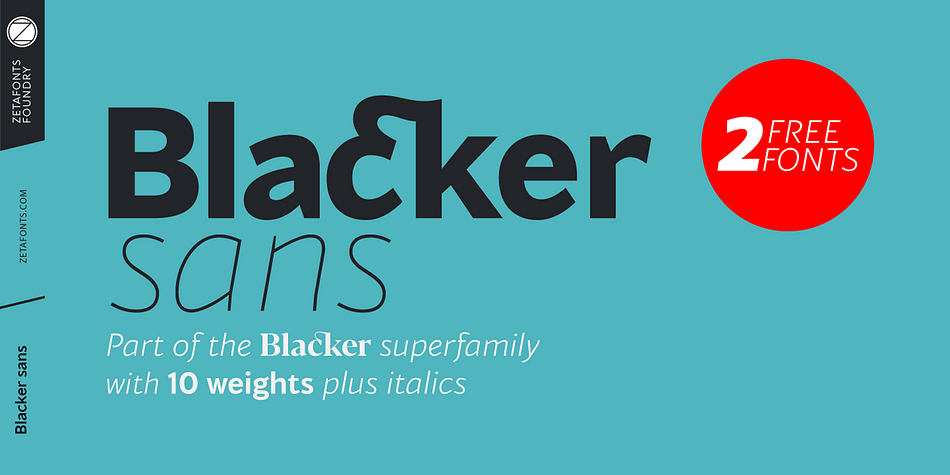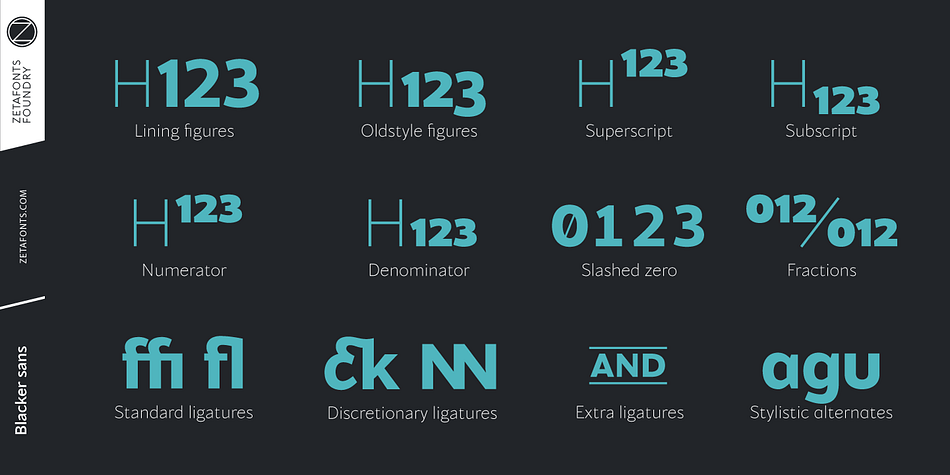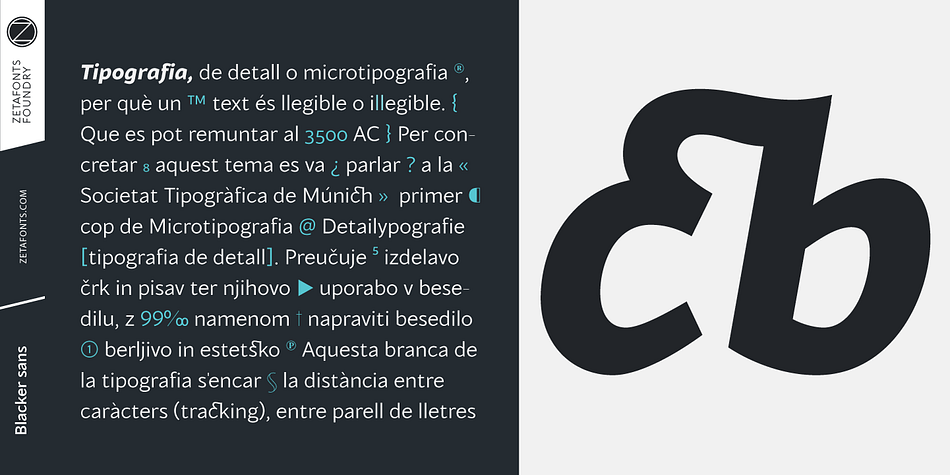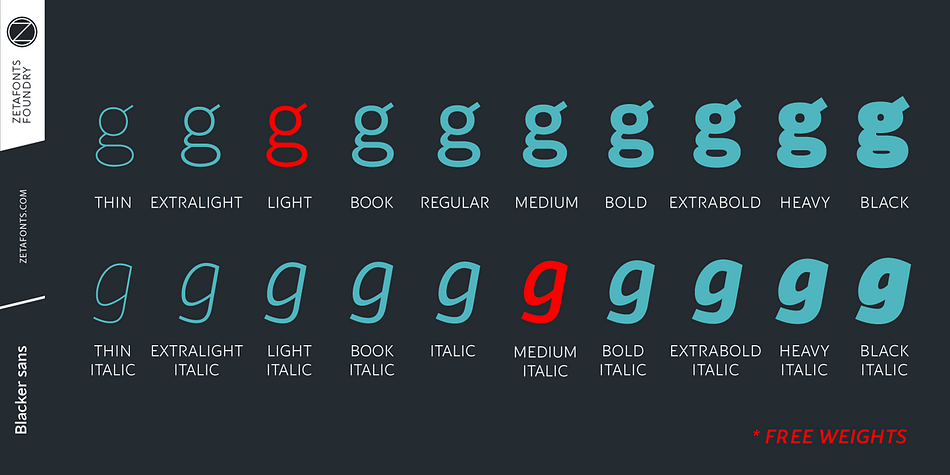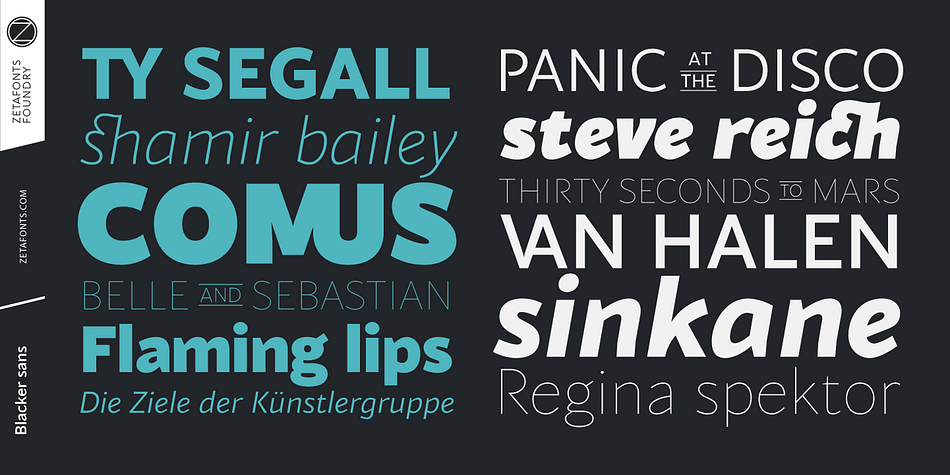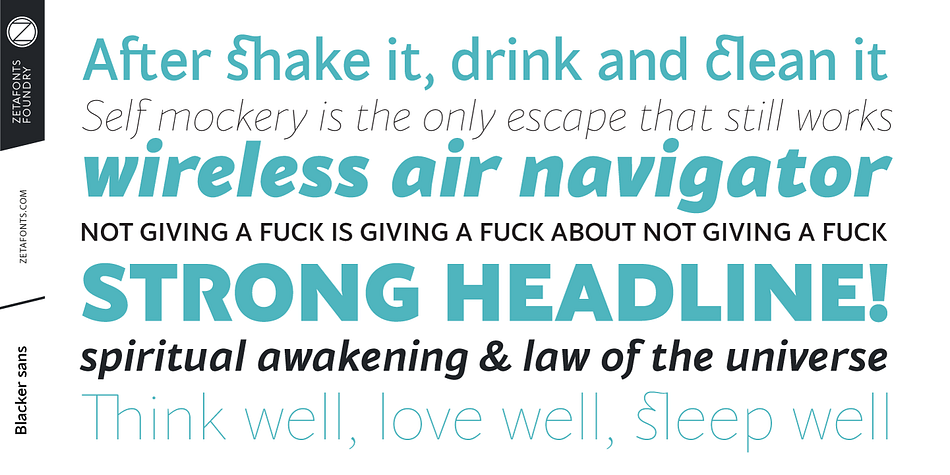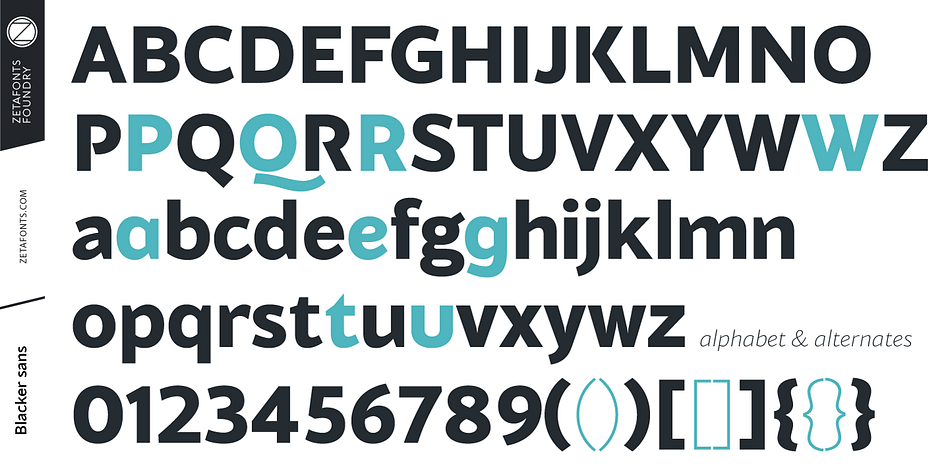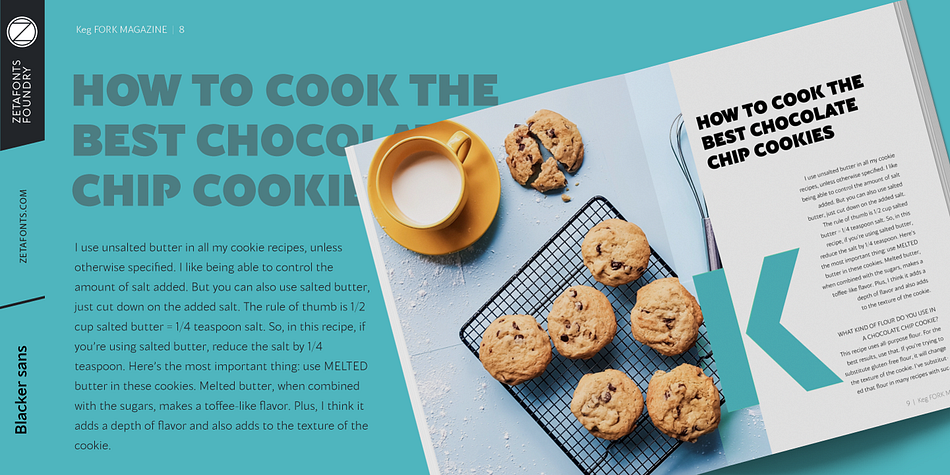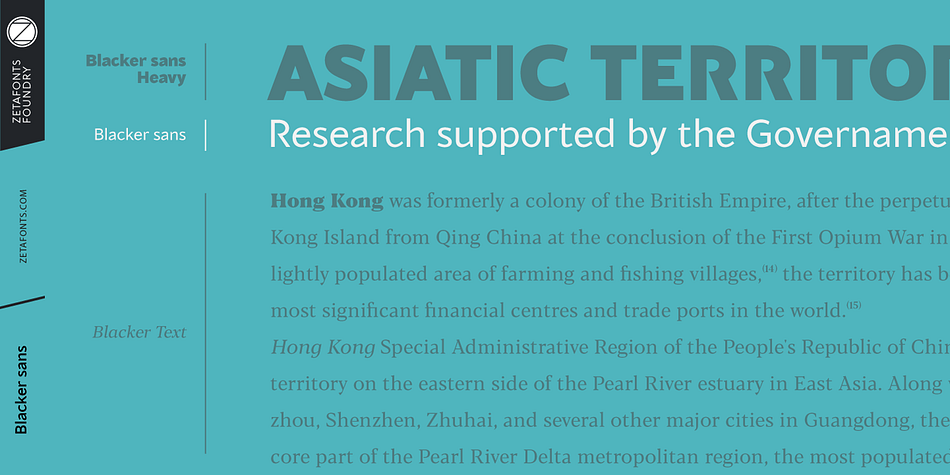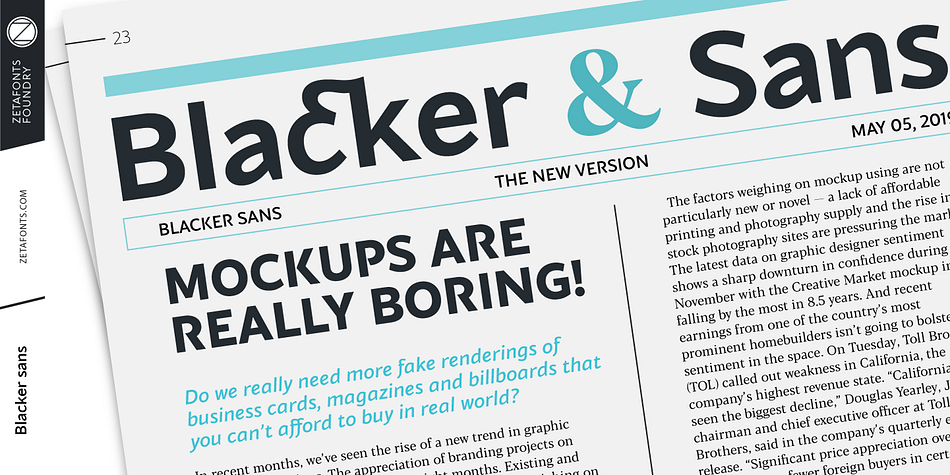
Designed by Francesco Canovaro and Andrea Tartarelli, Blacker Sans is a sans serif font family. This typeface has twenty styles and was published by Zetafonts.
Blacker Sans is Francesco Canovaro newest addition to the Blacker typeface family created for Zetafonts by Cosimo Lorenzo Pancini and Andrea Tartarelli after the inverse contrast Blackest. Born for flawless font pairing in complex branding and editorial projects, Blacker Sans parts with Blacker’s spiky wedge serifs without loosing its dark, elegant character while extending its weight range to include thin, extralight and heavy for maximum versatility in display use.
Contrast in the typeface is reduced to grotesque proportions, with optical corrections and fine design details to express the family identity. The result is a highly legible workhorse family that manages to keep the signature details of Blacker: the hook shape of lowercase “f” is hinted in “a”, “c” and “e”, while a nod to the original family spiky shapes appears in the ink-traps in “n”,”m”,”r”, “P” and “R”.
This combination of a robust design skeleton with fine design details makes Blacker Sans suited for body text usage but still expressive when set in large size for display or logo use.
With its wide set of OpenType features ranging from ligatures (both standard and discretionary) to stylistic alternates, small caps, positional numbers, and alternate punctuation; and its 1000+ characters offering language support for over 200 languages using Latin, Cyrillic and Greek alphabets, Blacker Sans is ready to become your next best alternative to the same old boring grotesque sans typefaces for branding, editorial or digital design.